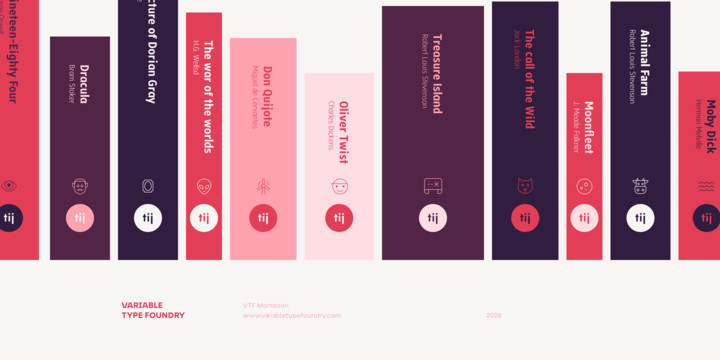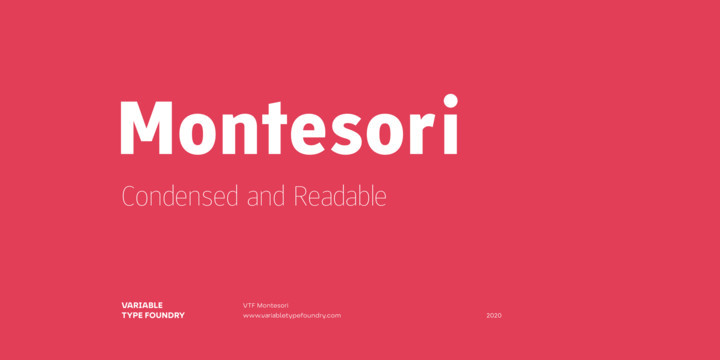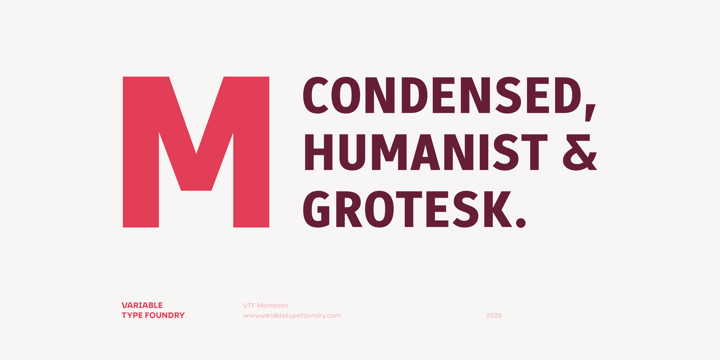
Montesori Font
Montesori FontMontesori is inspired by the economic forms and large x-height with a condensed style and a humanistic-grotesque typeface forms. It is a perfect option for editorial projects, branding, logos and packaging.
Montesori comes in a variety of nine weights (Fine, Extra Light, Ultra Light, Light, Regular, Semi Bold, Bold, Ultra Bold and Black) with its two styles (round and italic) classified in two forms, Basic and Alternative.
In addition, its case-sensitive shapes, ordinals, scientific inferiors, denominators, superscripts, subscripts, numerators, fractions… make it ideal for posters or infographics.